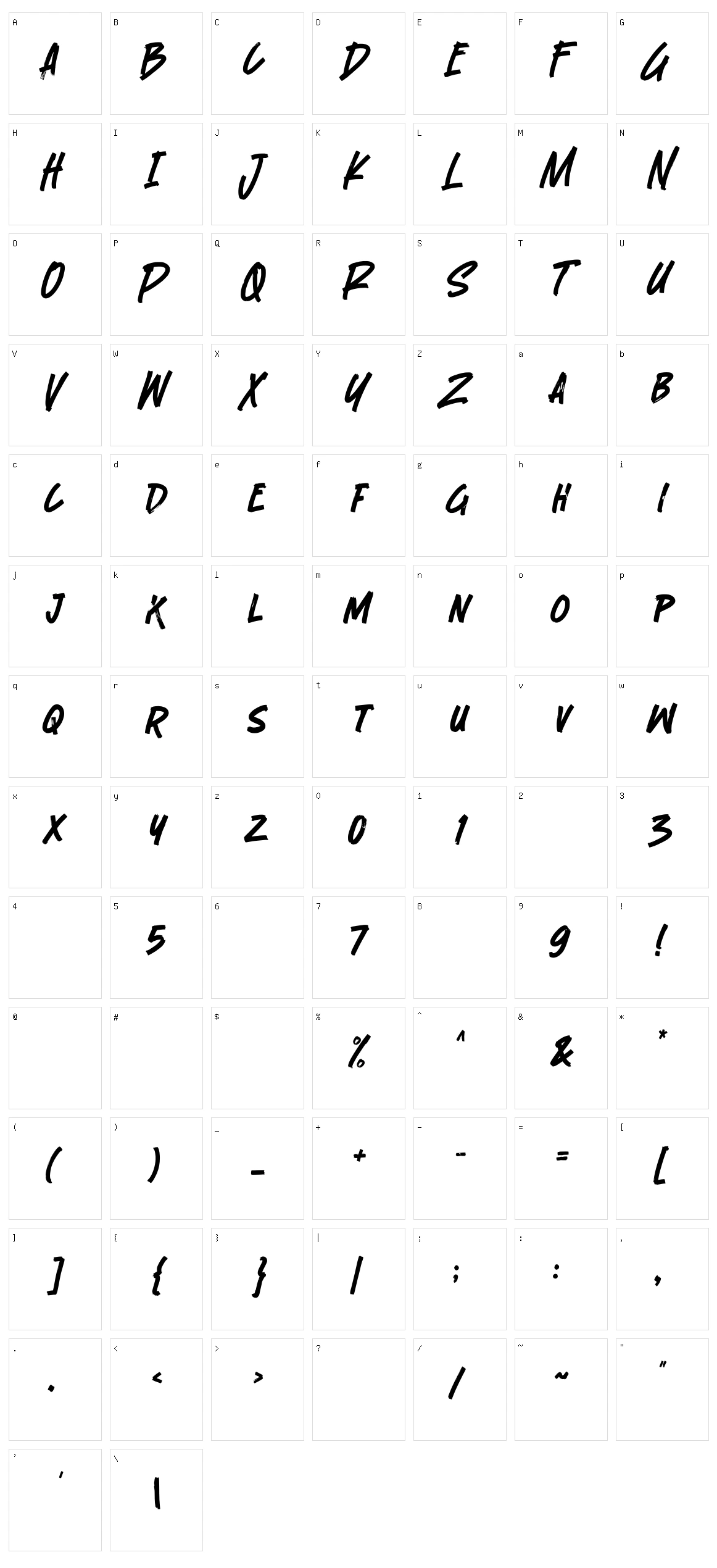
The free font Pathway is carefully designed by Gassstype, showcasing a thoughtful balance of creativity and usability and falls under the Script font style. When you download the ZIP file, it contains only 786.56 KB of font files, making it lightweight and quick to download. Please review the license details below to understand permitted usage and distribution rights. If license information is not available, we recommend using this font for personal projects only or contacting the author directly for commercial usage permissions.